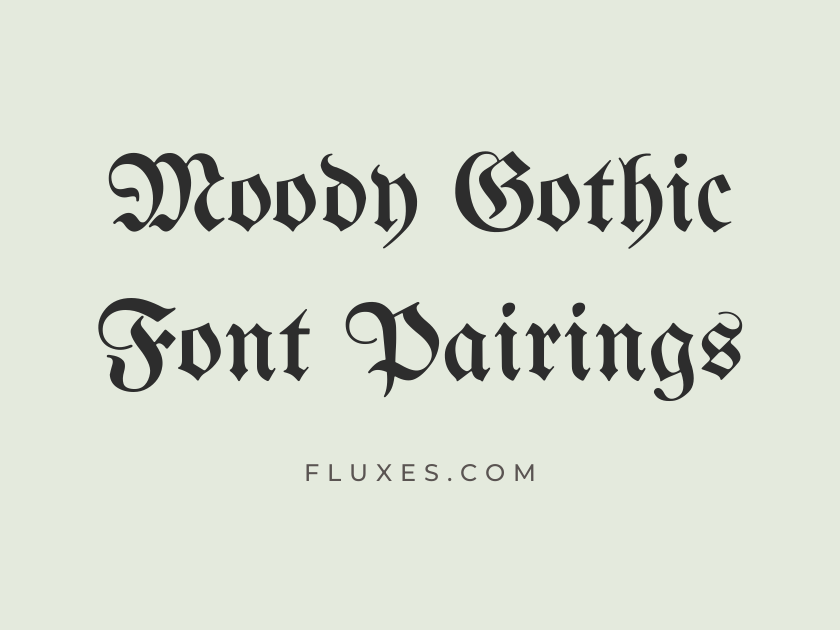
37 Moody Gothic Font Pairings
Gothic mood in type does not require actual blackletter, though blackletter certainly earns its place. The broader palette includes high-contrast Didones, carved Roman capitals, medieval manuscript letterforms, and horror-adjacent display faces, all of which need a calm, legible body partner to keep a design readable rather than exhausting. The pairings below draw on genuinely free Google Fonts and lean on classic pairing logic: contrast of weight and texture, shared proportions, or a common historical root, so you can build anything from a dark academia zine to a horror film poster or a gothic wedding suite.
UnifrakturMaguntia + EB Garamond
Shadows Over the Manor
A restrained serif keeps long passages readable beneath a heavy blackletter headline.
True blackletter is the most literal gothic reference available on Google Fonts, and it needs a body face with no competing texture. EB Garamond’s low contrast and open counters let the eye rest after the dense strokes above it, a pairing that suits invitations, metal merchandise, or historical branding.
Cinzel Decorative + Cormorant Garamond
Carved in Cathedral Stone
Elegant, tapered strokes give the supporting text the same sense of old world craft.
Both fonts share a Roman, inscriptional ancestry, so the decorative flourishes up top feel continuous with the delicate serifs below rather than mismatched. This combination fits gothic wedding stationery and museum or cathedral branding equally well.
Pirata One + Crimson Pro
Tales From the Crypt
A warm literary serif grounds the theatrical headline in something a reader can settle into.
Pirata One reads as gothic horror without tipping into novelty, and Crimson Pro’s book-like calm keeps the pairing usable for actual storytelling. It works well for horror fiction covers, podcast branding, or dark fantasy game titles.
Metal Mania + Work Sans
Raised From the Ashes
A clean, neutral sans keeps event details and copy easy to scan under a jagged headline.
The contrast principle is doing the work here: a rough, hand-scrawled metal display needs a body font with zero personality to stay legible. This pairing suits band merchandise, festival posters, and tattoo studio branding.
Nosifer + Inter
Something Waits Below
An ultra clean grotesque balances the dripping horror headline with practical, modern legibility.
Nosifer is about as visceral as display type gets, so pairing it with a font as controlled as Inter prevents an entire layout from feeling overwrought. Reach for this combination for horror game UI, escape rooms, or Halloween event pages.
Playfair Display + Crimson Text
A Portrait of Ruin
Both faces share the same high contrast serif DNA, so headline and body feel like siblings.
This is a shared-skeleton pairing rather than a contrast one: Playfair Display’s dramatic thick and thin strokes echo through Crimson Text at a smaller size. It reads as moody editorial, ideal for gothic literature blogs or dark academia publications.
Abril Fatface + Vollkorn
The Weight of Midnight
A sturdy old style serif supports the fat display headline without competing for attention.
Abril Fatface’s heavy Didone strokes need a body face with enough backbone not to disappear beneath it, and Vollkorn’s moderate contrast does exactly that. This pairing suits gothic magazine covers and dramatic product packaging.
Bodoni Moda + Cormorant
Whispers in the Dark
A delicate, tall x-height serif keeps the mood refined beneath a stark high-contrast headline.
Pairing two Didone-adjacent faces at very different weights creates drama while staying within one typographic family. It is well suited to perfume branding, gothic fashion lookbooks, and moody invitation suites.
Marcellus + Jost
Ruins of an Empire
A geometric sans keeps the layout current and legible beneath a classical, inscriptional headline.
Marcellus carries old Roman proportions that read as gothic-adjacent grandeur, while Jost’s clean geometry keeps the overall design from feeling costume-like. Good for architecture studios, history podcasts, or dark minimalist branding.
Cormorant SC + EB Garamond
An Elegy for Autumn
A quietly refined text face lets the small caps headline carry the drama on its own.
Cormorant SC and EB Garamond come from a similar old-style serif tradition, giving the pair compatible proportions even though one is set in caps and the other in running text. This suits literary journals and gothic-tinged wedding invitations.
Prata + Lora
The Last Candlelight
A warm, moderately contrasted serif keeps the body text approachable under a formal display face.
Prata’s transitional serif forms have enough weight to read as somber without becoming decorative, and Lora’s calligraphic undertone keeps the body feeling human. The combination fits candle brands, memoirs, and gothic interiors content.
Rozha One + Karla
Beneath the Black Veil
A grounded grotesque balances the unusual, high-contrast display serif with everyday clarity.
Rozha One has an unusual, slightly exotic contrast pattern that reads as dramatic without being generic gothic, and Karla’s plainness keeps that drama in check. Good for fashion editorials or dark, contemporary art direction.
Forum + Spectral
Voices of the Ancients
Forum
A contemporary serif with restrained detailing carries longer passages beneath a monumental headline.
Forum’s inscriptional capitals suit anything referencing ruins, empires, or classical horror, and Spectral is calm enough in body sizes to avoid competing with them. This pairing fits history documentaries and museum exhibition materials.
IM Fell English + EB Garamond
Printed by Candlelight
IM Fell English
A companion old style serif keeps the antique press character consistent through the body copy.
Both faces reference early letterpress printing, so the pairing feels historically coherent rather than assembled from unrelated eras. It is a natural fit for gothic fiction, antiquarian booksellers, and archive-driven websites.
Uncial Antiqua + Cormorant Garamond
Scribed in the Old Tongue
Uncial Antiqua
An elegant serif keeps the manuscript-inspired headline from overwhelming the reading experience.
Uncial Antiqua’s rounded medieval letterforms are unmistakably manuscript-era, so it needs a refined, quieter body face to stay usable. This pairing works well for dark fantasy branding, tarot decks, and folklore projects.
Almendra + Crimson Pro
A Curse Long Forgotten
Almendra
A readable literary serif keeps the ornate display headline from tipping into pure decoration.
Almendra’s gothic revival curves carry real personality, and Crimson Pro’s plainer construction gives the eye somewhere calmer to land. This suits fantasy book covers and gothic romance branding.
Julius Sans One + Lora
Thin as Winter Light
Julius Sans One
A warm serif body offsets the cold, minimal precision of the thin display caps above it.
This is a deliberate contrast pairing: an extremely light, wide sans against a warmer, rounder serif creates the kind of understated, austere mood common in dark minimalist branding. Consider it for gallery invitations or architectural portfolios.
Cardo + Nunito Sans
Notes From the Archive
A clean, rounded sans keeps supporting text friendly beneath an academic serif headline.
Cardo’s scholarly serif forms suit dark academia projects, and Nunito Sans’s soft geometry prevents the overall page from feeling too severe. Good for research journals, book blogs, and library branding.
Gilda Display + Karla
Portrait of a Recluse
Gilda Display
A humanist sans grounds the condensed display serif with straightforward, contemporary legibility.
Gilda Display’s condensed proportions add tension and formality, which Karla’s open, even letterforms relax back into something readable. This pairing suits editorial features and gothic fashion lookbooks.
Tenor Sans + Cormorant Garamond
Silence After the Storm
Tenor Sans
A romantic serif adds warmth beneath the cool, geometric restraint of the headline above.
Pairing a restrained geometric sans with an ornate serif is a classic contrast strategy that keeps a gothic layout from feeling one-note. It fits moody lifestyle branding and understated wedding stationery.
Della Respira + PT Serif
Echoes of a Faded Era
Della Respira
A practical, sturdy serif keeps the body text legible beneath a delicate art deco headline.
Della Respira’s subtle art deco flourish reads as vintage-gothic rather than purely decorative, and PT Serif’s plain sturdiness supports it without stealing focus. Good for vintage hotel branding or period drama marketing.
Sorts Mill Goudy + Noto Serif
A Letter Never Sent
Sorts Mill Goudy
A shared old style warmth keeps headline and body feeling like they belong to the same story.
Both faces come from the same warm, humanist old-style tradition, so this pairing feels cohesive rather than contrasted. It suits epistolary fiction, memoirs, and gothic correspondence-themed design.
Vidaloka + Alegreya
The House Remembers
Vidaloka
A literary serif with calligraphic roots carries longer gothic narrative passages comfortably.
Vidaloka’s slab-like weight gives headlines real presence on the page, and Alegreya’s flowing letterforms keep extended reading pleasant. This combination fits gothic novel covers and long-form storytelling sites.
Libre Caslon Display + Libre Baskerville
Bound in Leather and Ash
Libre Caslon Display
A classic book serif keeps the reading experience familiar beneath a bold display headline.
These two faces share a lineage in classic English printing, giving the pairing an old-book gravity appropriate to gothic storytelling. It works especially well for publishing houses and antiquarian bookshops.
Fondamento + Old Standard TT
Written in a Trembling Hand
Fondamento
A formal academic serif steadies the handwritten quality of the headline above it.
Fondamento brings a manuscript, almost blackletter-adjacent quality without being fully illegible, and Old Standard TT’s academic formality keeps the pairing credible. This suits gothic correspondence design, tarot branding, and archival themes.
Old Standard TT + Crimson Text
Lecture Notes on the Occult
A calm literary serif keeps dense reading comfortable under a formal academic headline.
Both faces share dark academia’s scholarly mood, making this pairing well suited to research-driven or lecture-style content that still wants a gothic undertone. It fits university press materials and history-focused newsletters.
Spectral + Karla
A Study in Shadow
A plain, modern grotesque keeps supporting copy efficient beneath a moody serif headline.
Spectral at a bold weight carries enough contrast to feel gothic without needing a decorative face, and Karla’s neutrality keeps the pairing feeling current. Good for moody editorial sites and dark-mode interfaces.
Cinzel + Frank Ruhl Libre
Monuments to the Fallen
A dense, literary serif gives the body text the same historical gravity as the headline.
Cinzel’s inscriptional capitals and Frank Ruhl Libre’s dark, scholarly texture both nod toward old stone and old books, keeping the mood consistent from headline to paragraph. This pairing suits memorial sites, history museums, and somber branding.
Playfair Display SC + Vollkorn
A Requiem in Small Caps
Playfair Display SC
A dependable serif body supports the theatrical small caps headline without fighting for drama.
Small caps display type reads as formal and slightly severe, which Vollkorn’s steady rhythm keeps from becoming exhausting over a full page. It fits funeral homes, gothic stationery, and formal event branding.
Butcherman + Nunito Sans
They Never Left the House
A soft, rounded sans keeps practical details legible under a jagged horror display headline.
Butcherman’s rough, torn edges are pure horror-poster gothic, so the body face needs to disappear entirely into the background, which Nunito Sans does well. Use it for haunted house marketing or Halloween event pages.
Eater + Work Sans
Corroded and Forgotten
Eater
A crisp modern sans keeps the page functional beneath a deliberately eroded horror headline.
Eater’s decayed letterforms work best in small doses, so pairing it with a thoroughly modern grotesque like Work Sans keeps the rest of the page usable. This suits horror game branding and creepypasta style sites.
Creepster + Archivo
Trick or Treat, Darling
A solid grotesque anchors the page beneath a drippy, playful horror headline.
Creepster reads as festive horror rather than true gothic dread, and Archivo’s sturdy neutrality keeps that playfulness from feeling flimsy. It is a reliable choice for seasonal Halloween branding and party invitations.
UnifrakturCook + Cormorant Garamond
Kingdom of Long Shadows
UnifrakturCook
An elegant serif softens the heavy blackletter headline into something readable and refined.
UnifrakturCook is bolder and more textured than its cousin UnifrakturMaguntia, so it benefits from an especially light, elegant body partner like Cormorant Garamond. This works for metal branding that wants a touch more polish, or gothic fantasy title pages.
Almendra SC + EB Garamond
An Oath Sealed in Wax
Almendra SC
A dependable garamond keeps the story readable beneath an ornate small caps headline.
The ornamental detail in Almendra SC is best used sparingly, and EB Garamond’s plain warmth gives readers a rest between headlines. This suits gothic fantasy branding, wax-seal invitations, and secret-society themed design.
Cormorant Unicase + Jost
Neither Day Nor Night
Cormorant Unicase
A minimal geometric sans keeps the page current beneath an unusual, elegant unicase headline.
Cormorant Unicase’s mixed-case letterforms feel strange and a little eerie in the best way, and Jost’s plainness keeps that strangeness legible rather than gimmicky. Reach for it in experimental gothic branding or art direction.
Marcellus SC + Crimson Pro
Vows Sworn at Twilight
Marcellus SC
A literary serif carries the narrative details beneath a formal, classical small caps headline.
Marcellus SC’s restrained classical caps pair naturally with Crimson Pro’s warmer, more human text forms, balancing formality with readability. This combination suits gothic wedding invitations and formal event programs.
Frank Ruhl Libre + Karla
Archives of the Damned
A clean, modern sans keeps navigation and captions clear beneath a dark, literary headline.
Frank Ruhl Libre’s dense, dark texture is dramatic enough to anchor a whole page on its own, so a plain sans like Karla is enough to support it without adding competing weight. This works well for dark academia websites and archive-driven branding.
Tips for building your own moody gothic pairings
Reserve true blackletter and horror display faces for short headlines only; none of them read comfortably at body sizes.
Pick a body serif or sans with a slightly muted, low-contrast texture so it recedes and lets the display face carry the mood.
When in doubt, match era before mood: a Roman inscriptional headline sits more naturally with an old-style serif body than with a geometric sans, even though both can technically work.
Test pairings in dark mode as well as light. Many gothic display faces were designed with heavy strokes that read differently on black backgrounds than on white.